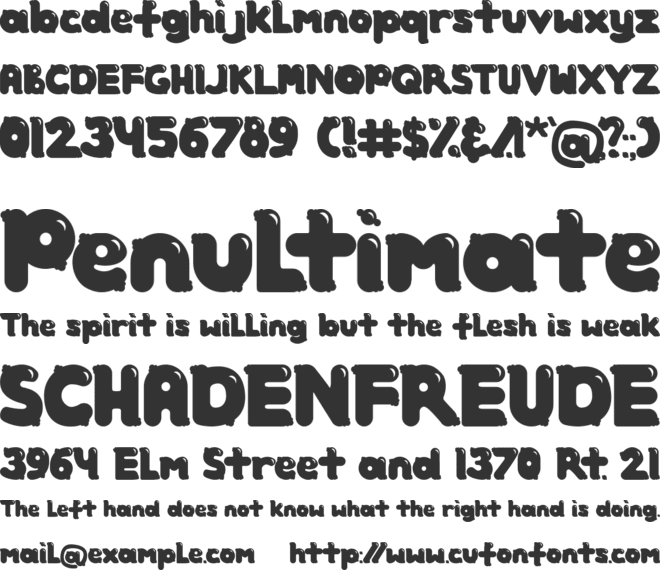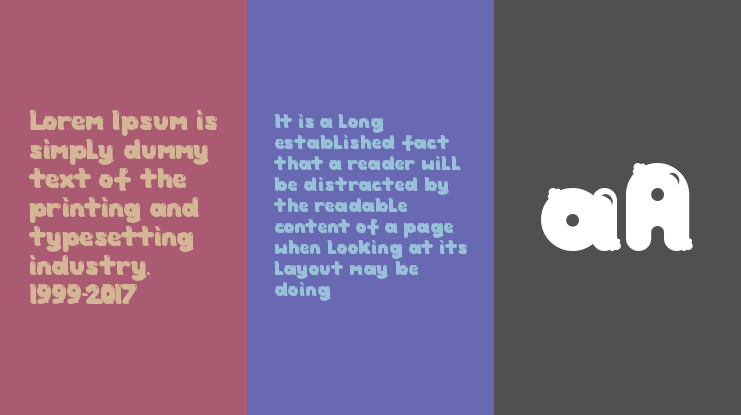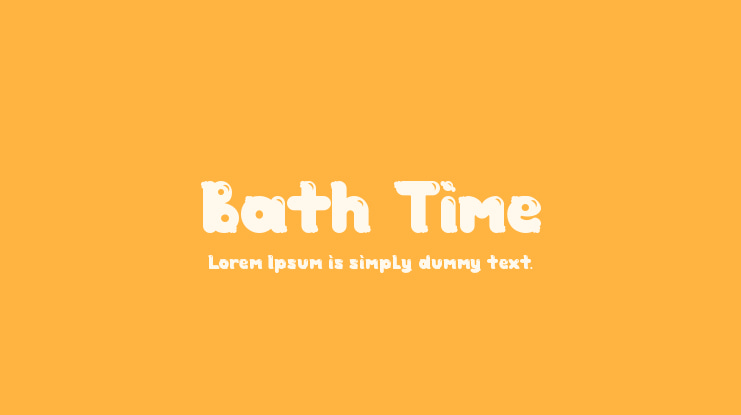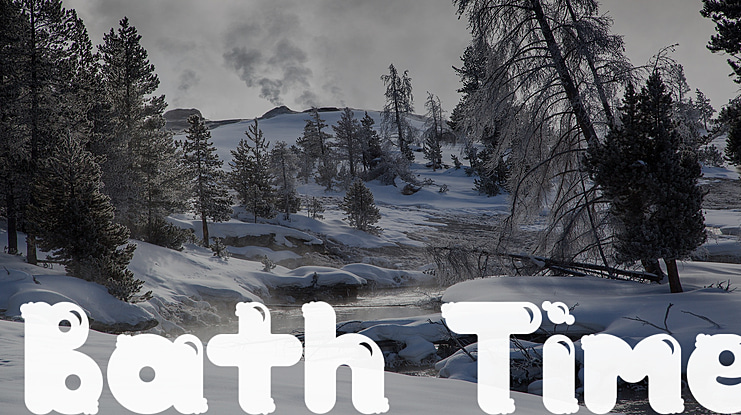
Bath Time Font
Bath Time Font by Jofiane
Bath Time Font is a font to tell the innocent side of babies' and children's bath time. It's easy to read and fun to use. It also looks great on every media! :)